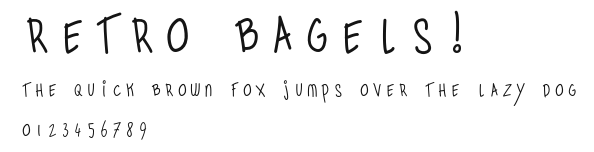
Retro Bagels! Preview
• Font Name: Retro Bagels!
• Full Font Name: Retro Bagels!
• Designer: Lars Manenschijn
• Manufacturer: Lars Manenschijn
About Retro Bagels!.otf
Retro Bagels!.otf is a modern, elegant sans-serif font designed for ultimate readability and visual harmony. Perfect for branding, headlines, web design, and print materials.